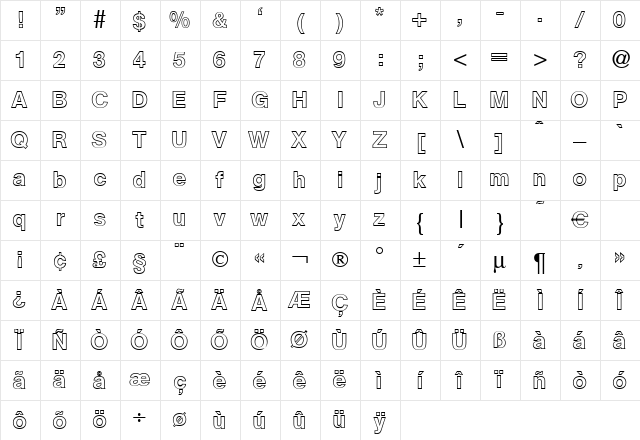
AgentOutlineDB Normal Free Font
AgentOutlineDB Normal
Design Context for AgentOutlineDB
AgentOutlineDB is built around its visual character rather than neutral utility - its distinctive forms are designed to make an impression at display sizes.
Font Pairing: Pair with a clean neutral sans-serif for body copy to let AgentOutlineDB's character lead without overwhelming the composition.
Pro Tip: Use AgentOutlineDB exclusively at display sizes - it was designed to be seen, not read at length. Let a neutral companion handle body copy.